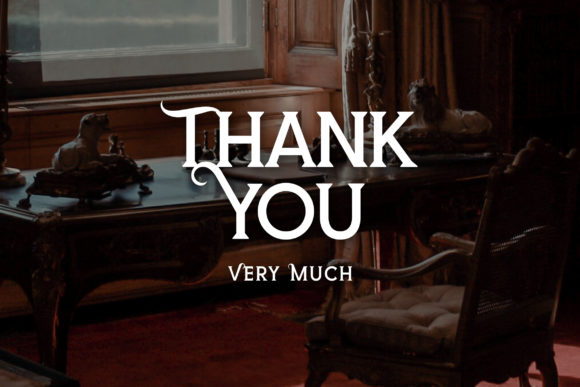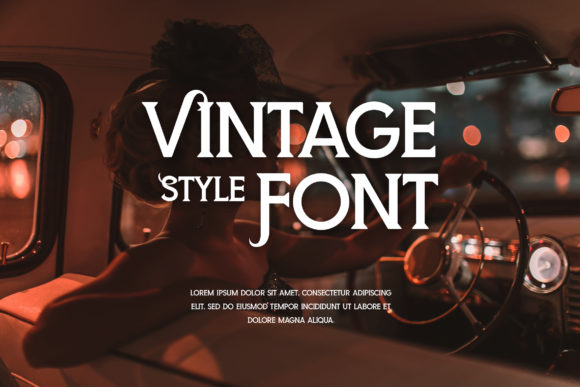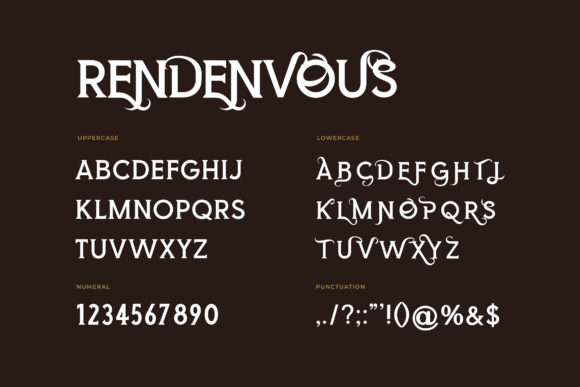
Introduction to Rendenvous Font
Rendenvous is a vintage styled, assertive serif font.
This original look will appeal to a wide range of crafty ideas, from letterheads and titles, to stationery .
Key Features of Rendenvous Font